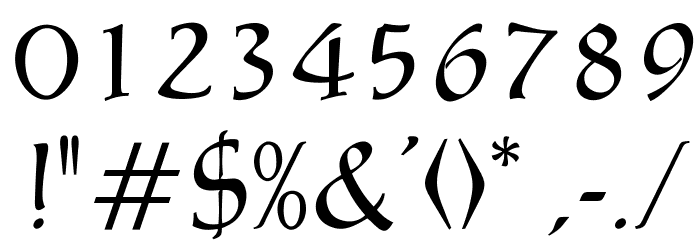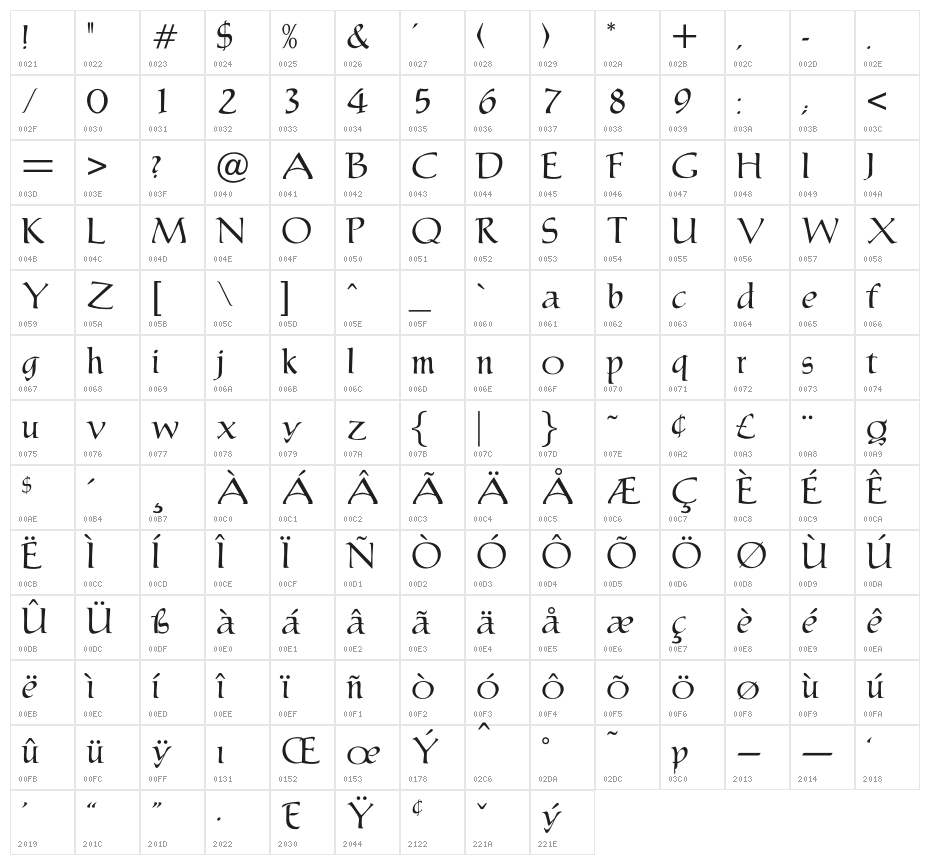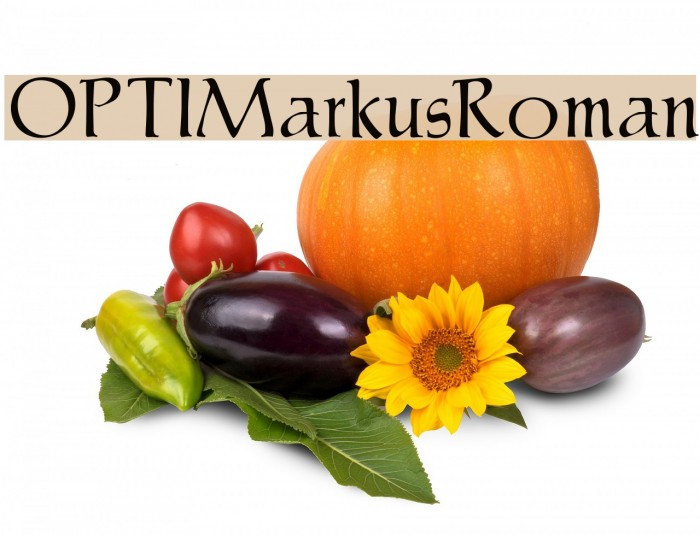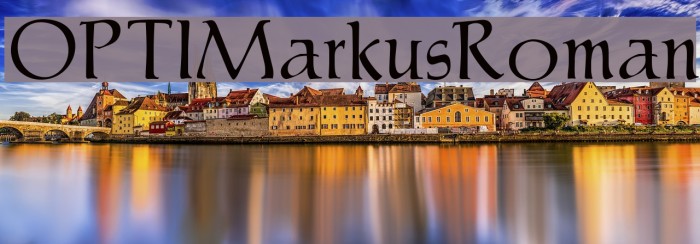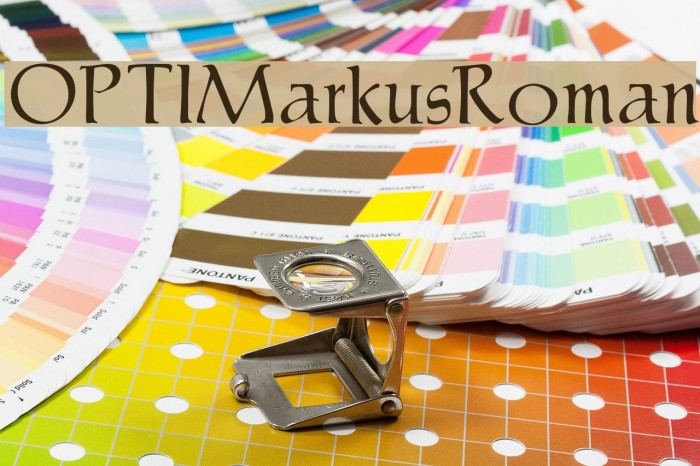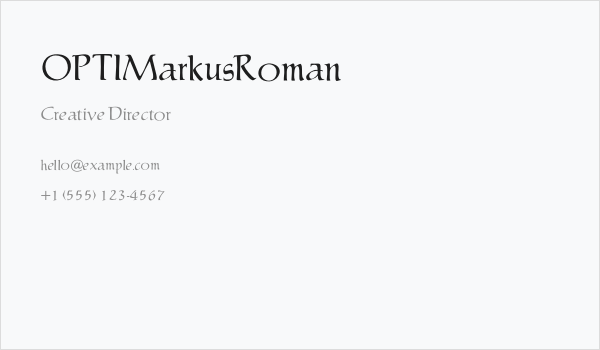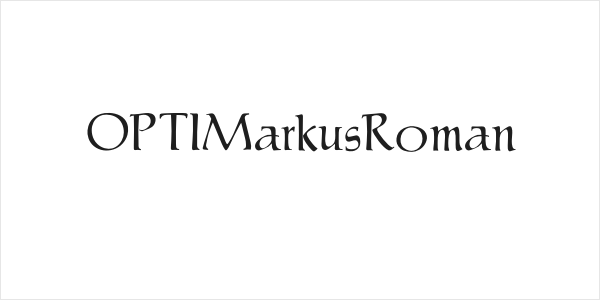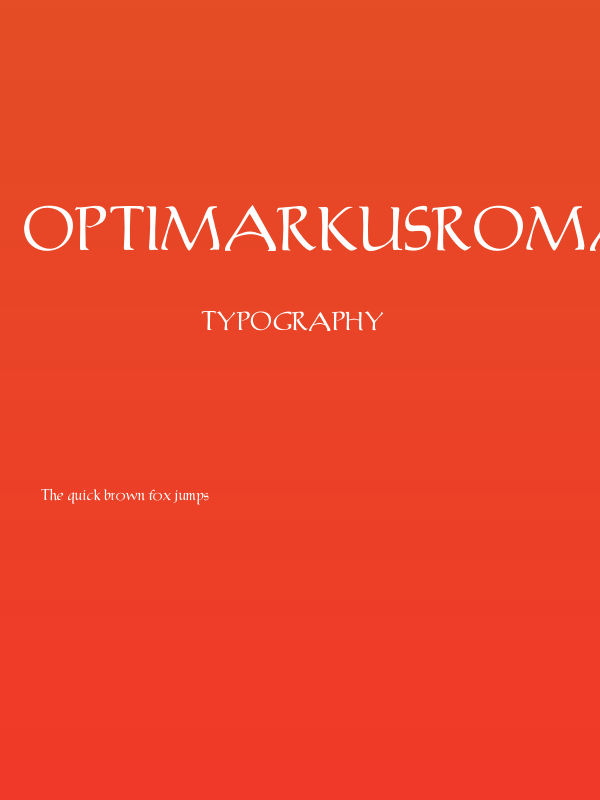
OPTIMarkusRoman Font
OPTIMarkusRoman Description
This font exhibits a classic and elegant style with a touch of modern flair. The uppercase letters are bold and slightly condensed, featuring sharp serifs that give them a distinctive and authoritative appearance. The lowercase letters maintain a consistent style with smooth curves and a balanced weight, making them highly readable. The numerals are well-proportioned, aligning seamlessly with the overall design. Special characters are crafted with precision, adding to the font's versatility. This font is suitable for projects that require a sophisticated and timeless look, such as formal invitations, branding, and editorial design.
| Proposed Projects | Ideal for formal invitations, branding, editorial design, and luxury product packaging. |